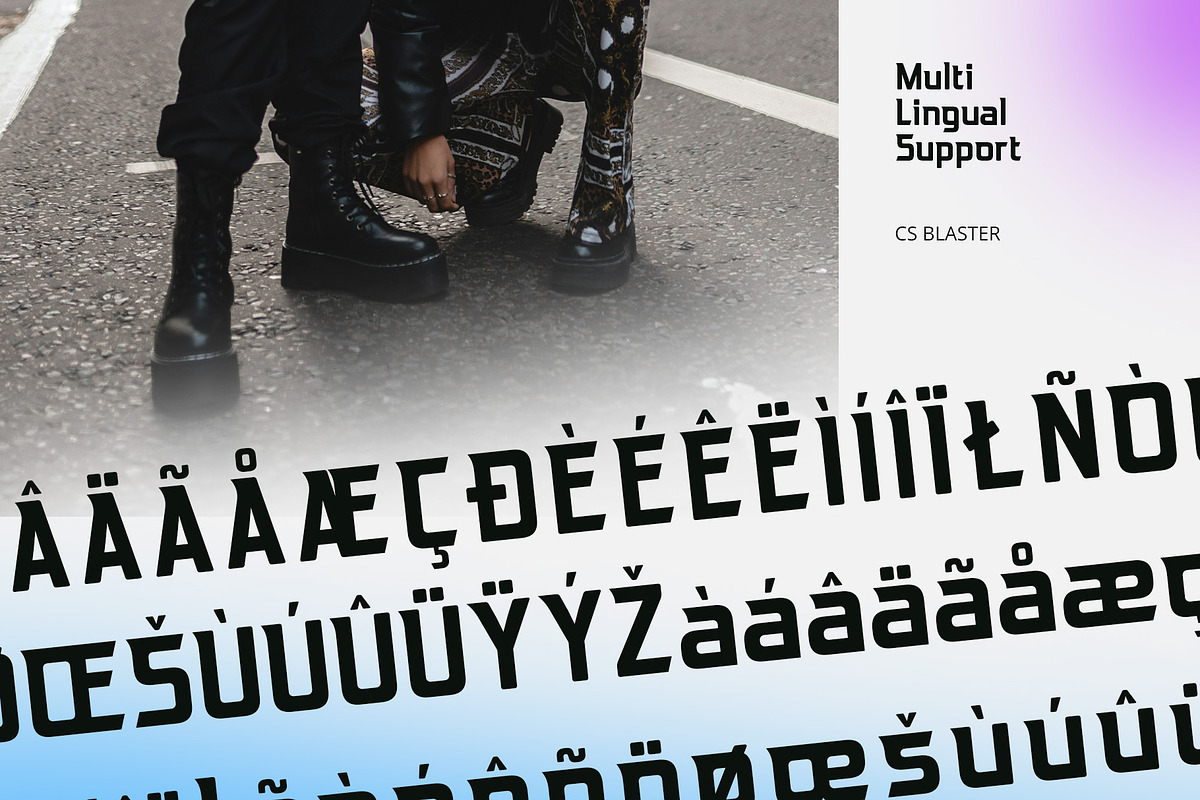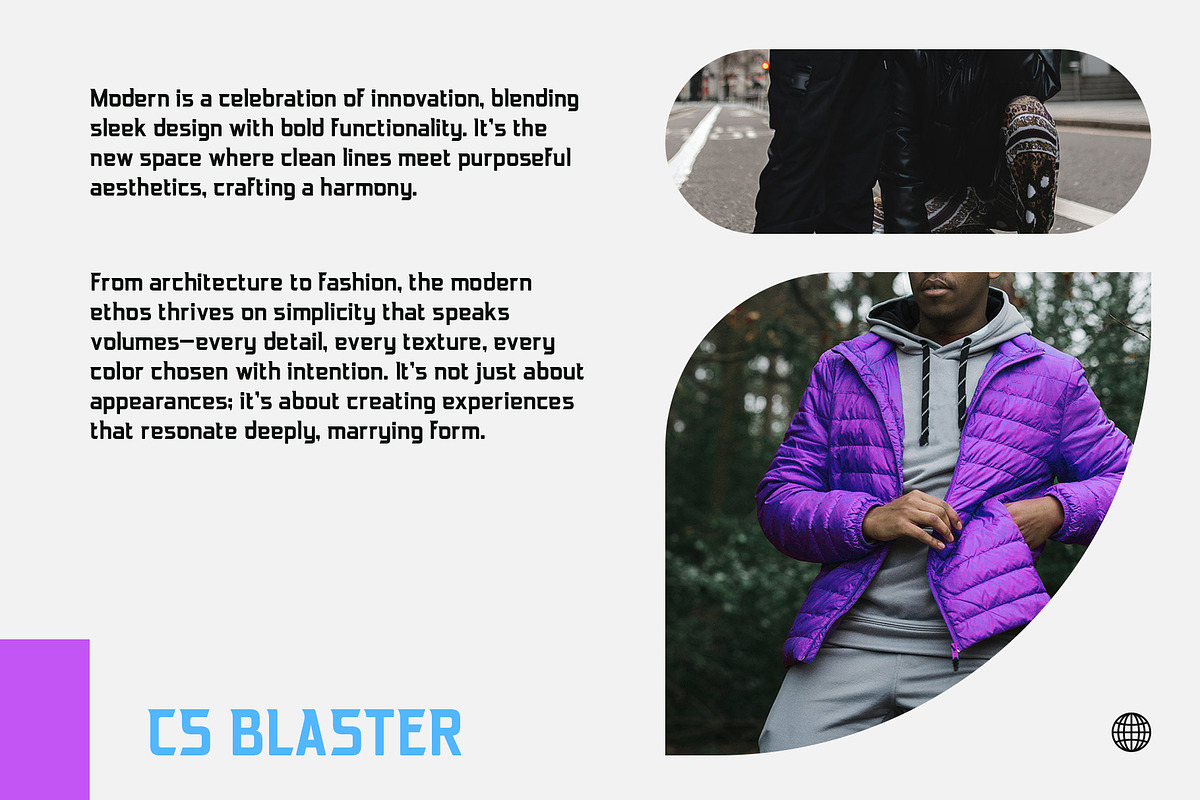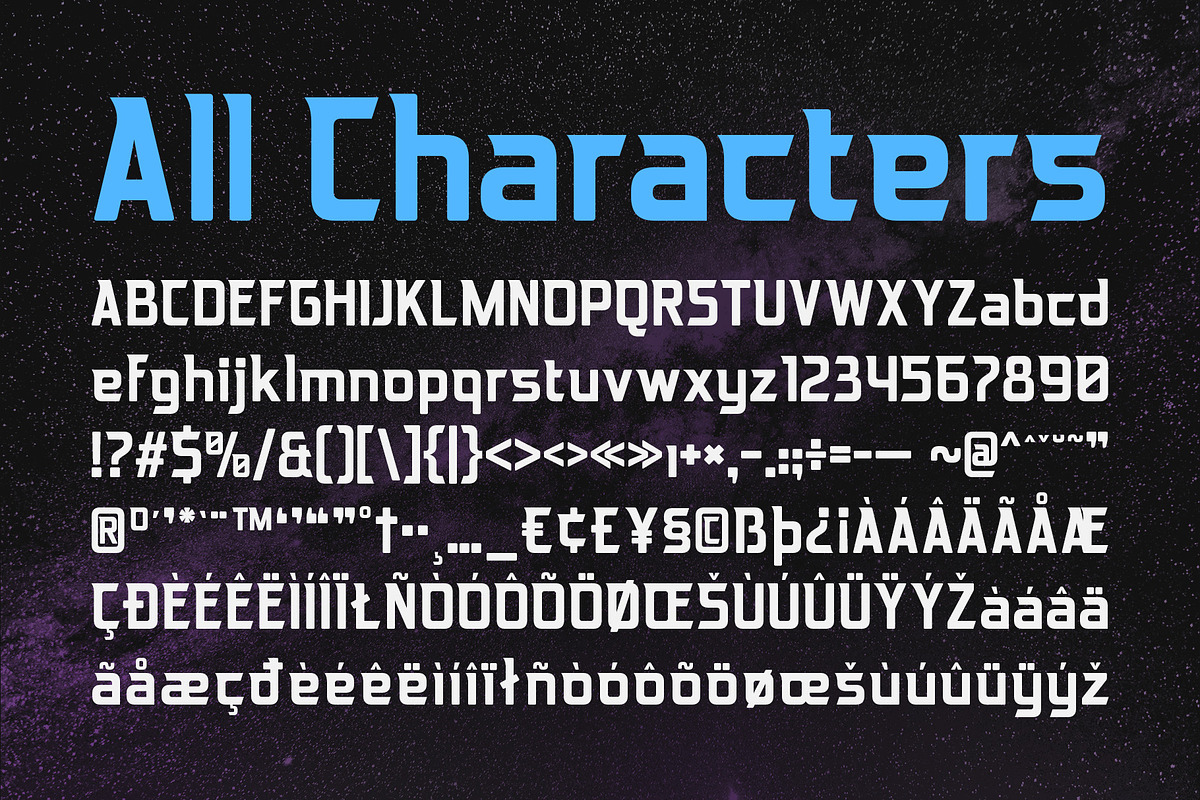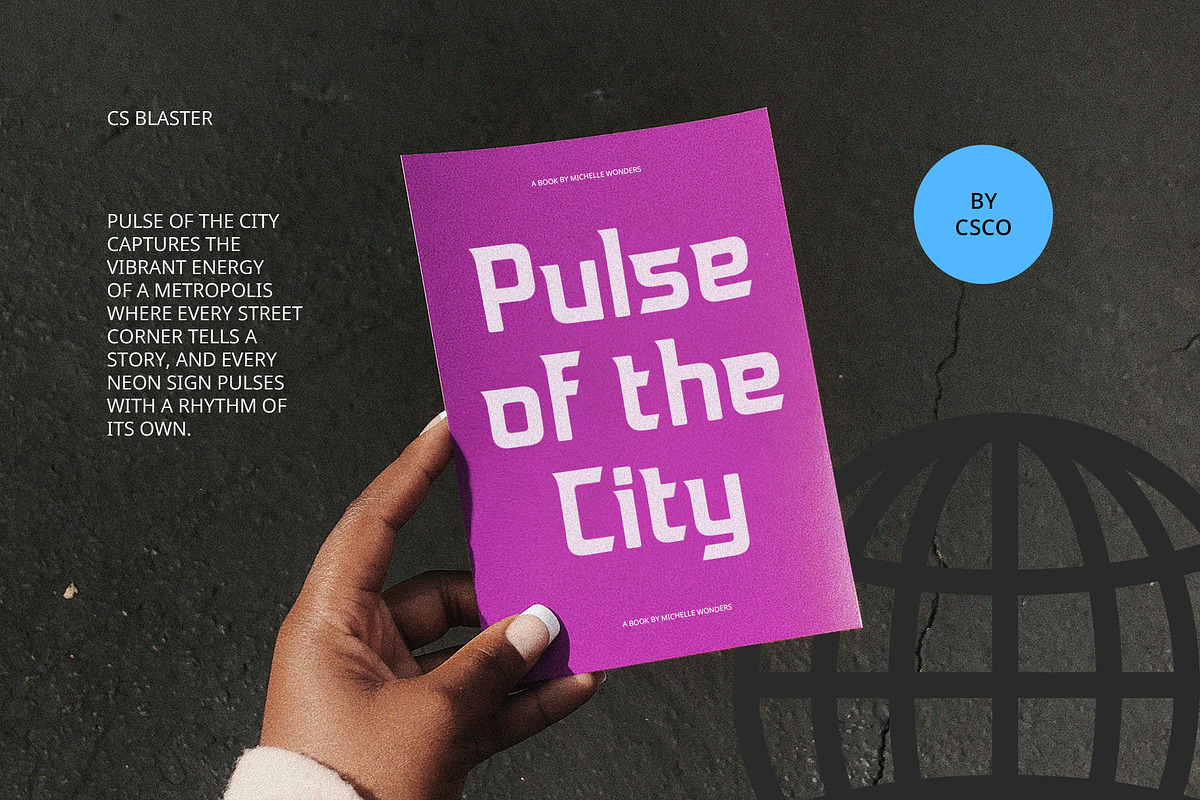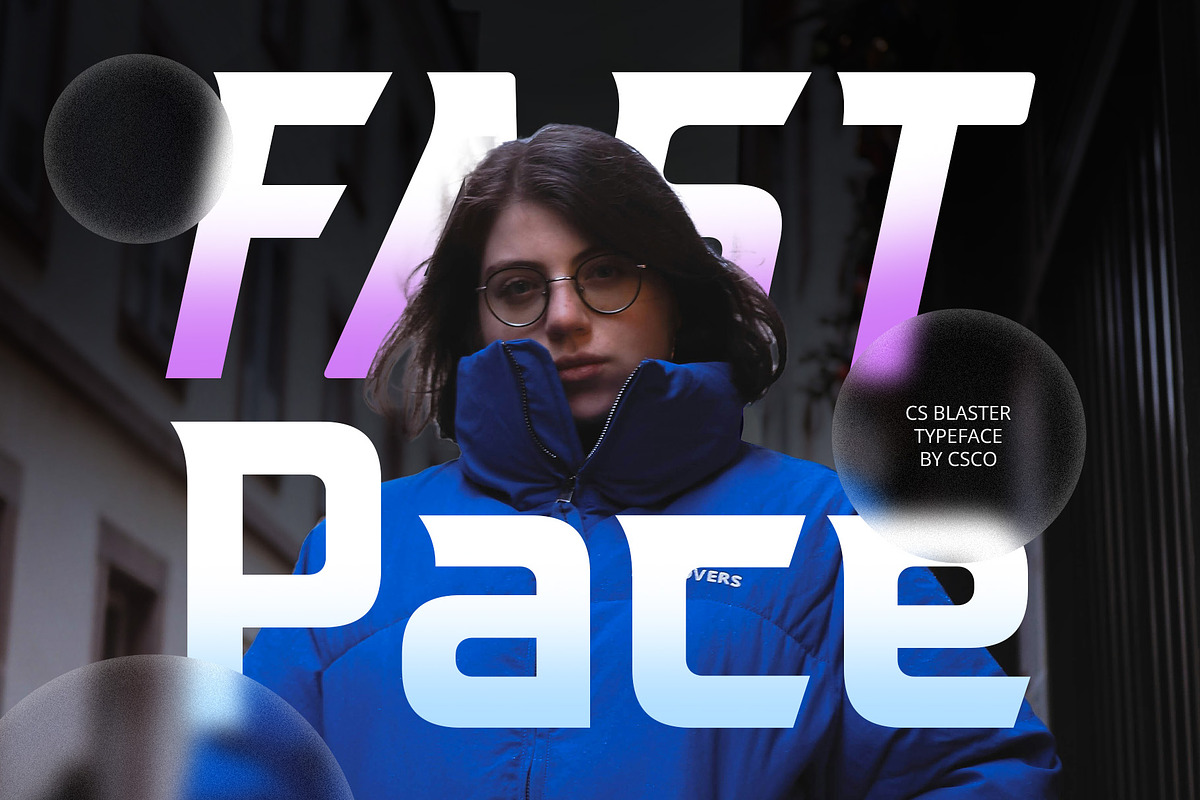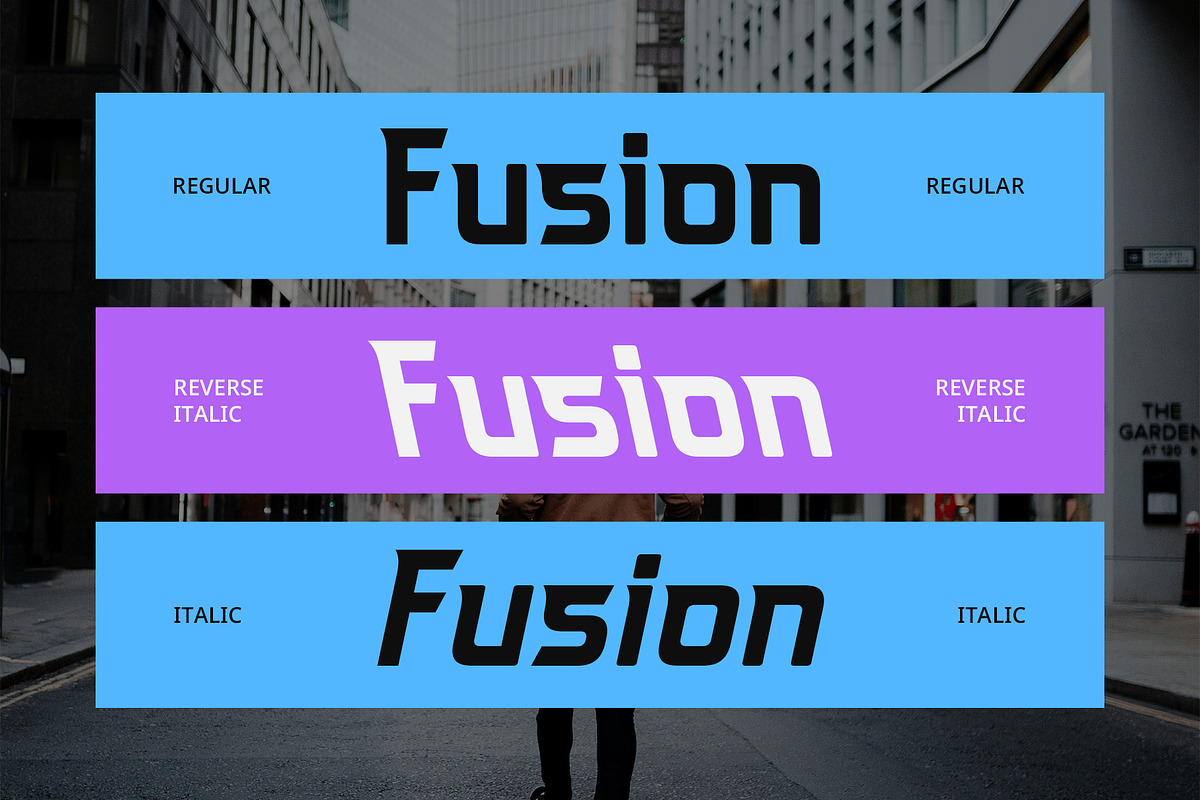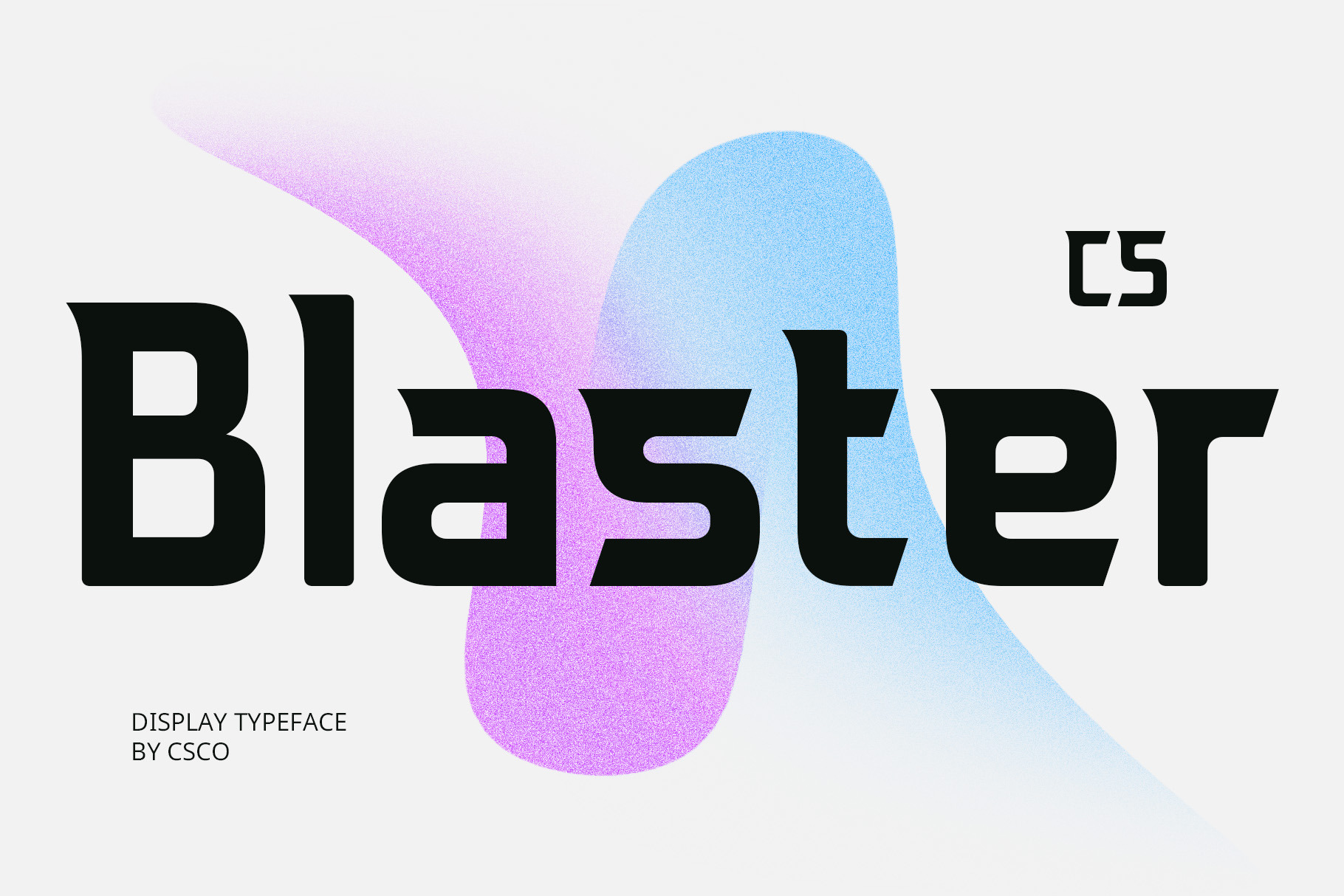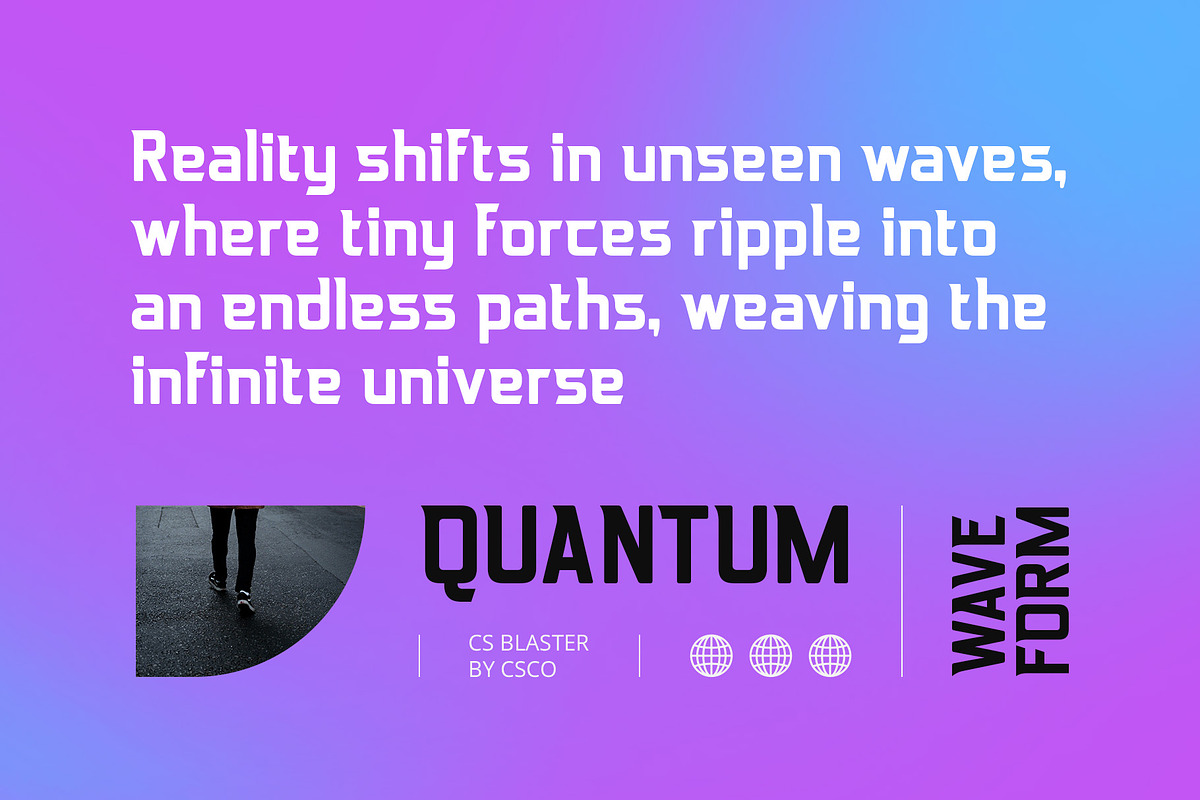
CS Blaster – Techno Font
CS Blaster – Futuristic Techno Font
Bold Geometric Sans-Serif Design CS Blaster is a modern sans-serif font featuring bold, geometric shapes that exude a strong, futuristic, and high-tech aesthetic. Its precise lines and symmetrical forms showcase an advanced, innovative design, making it an excellent choice for projects that embrace technology and modernity. The bold weight ensures a commanding presence, delivering a striking and impactful visual impression.
Futuristic and Professional Appeal The techno-inspired design of CS Blaster captures the essence of forward-thinking aesthetics, combining clean geometry with a contemporary edge. Its sharp angles and balanced proportions create a sleek, professional look, perfect for high-tech branding and digital projects. This font effortlessly blends functionality with style, making it ideal for modern creative endeavors.
Perfect for Digital Branding, Posters, and Cutting-Edge Designs CS Blaster is tailored for designs that demand attention, from digital interfaces and tech branding to futuristic posters and experimental layouts. Its bold and geometric characteristics ensure high readability and a standout appearance, whether used in headlines, logos, or display text. The futuristic vibe of this font adds a sense of innovation and sophistication to any project.
Dynamic, Modern, and Eye-Catching Whether you’re crafting a tech-inspired visual or creating branding that needs to project innovation, CS Blaster offers the perfect blend of modernity and strength. Its unique style and bold geometry make it a versatile and impactful typeface.
- CS Blaster Regular
- CS Blaster Italic
- CS Blaster Reverse Italic